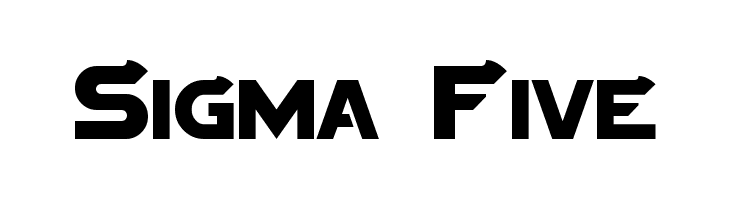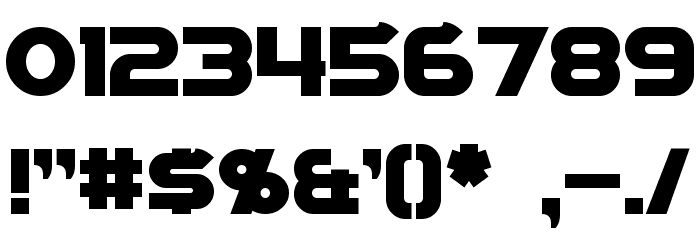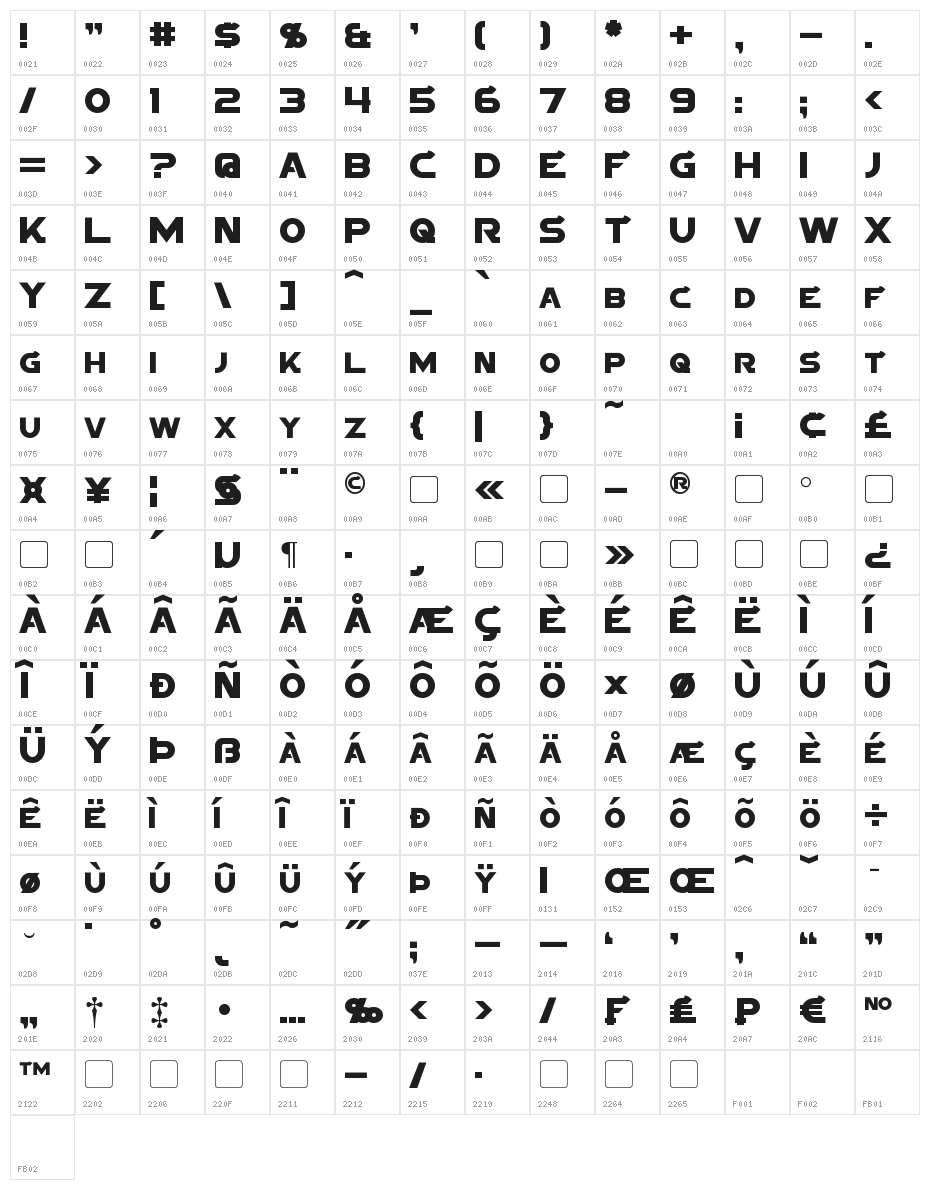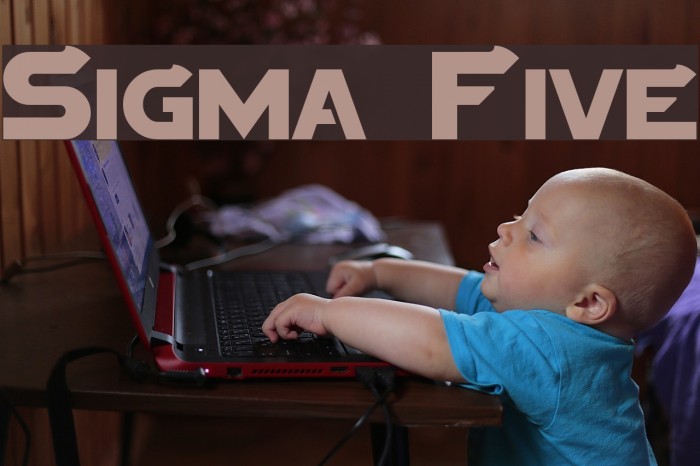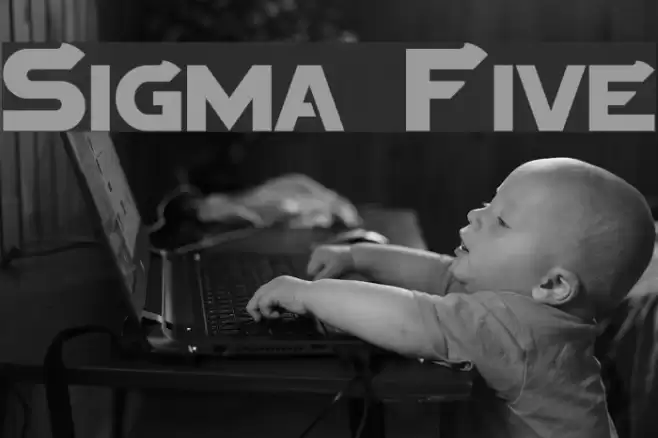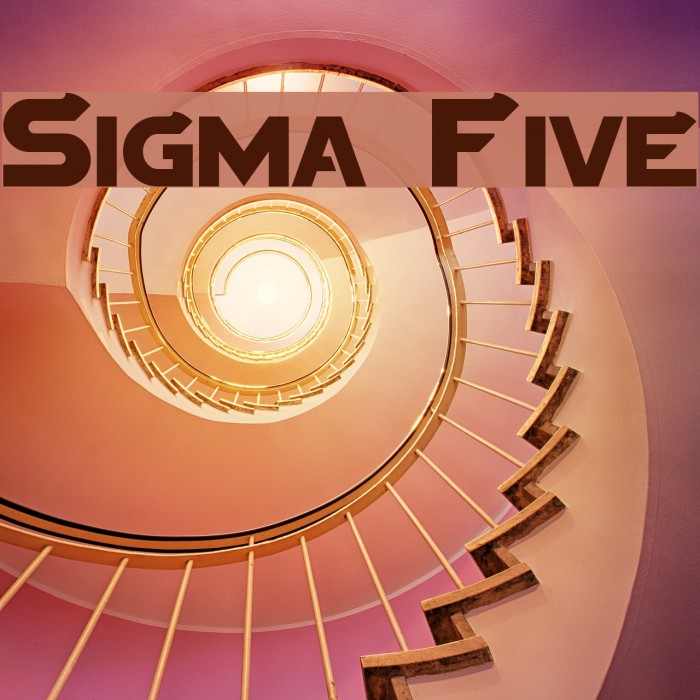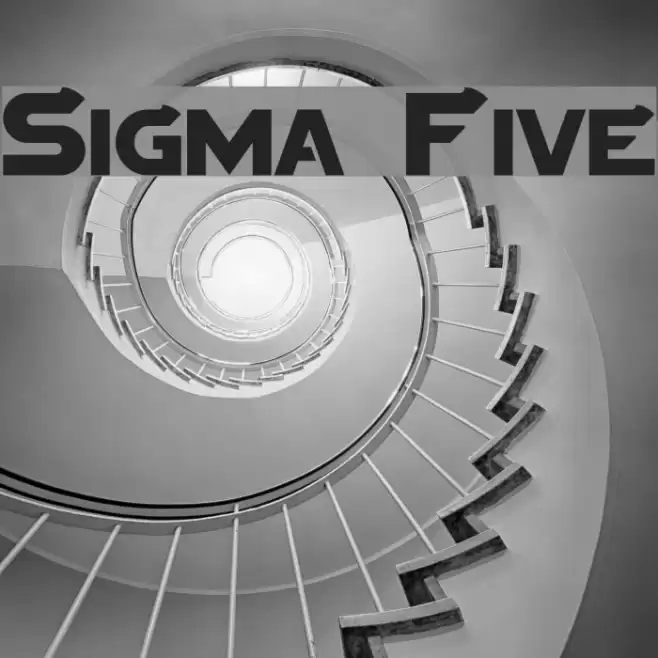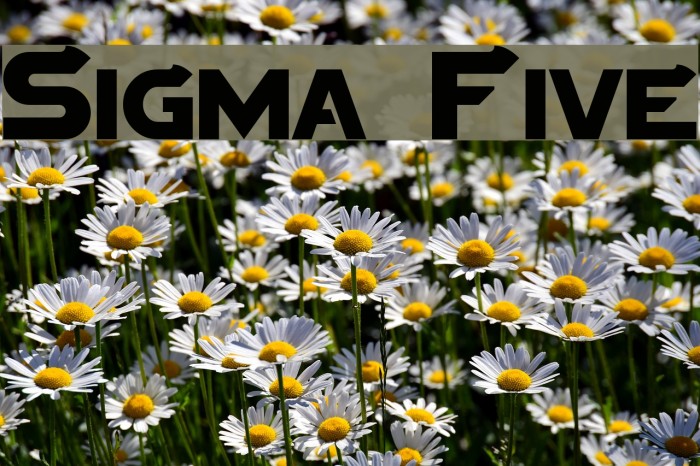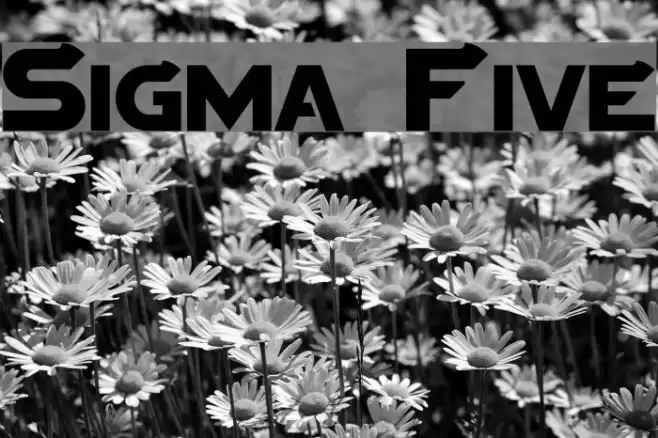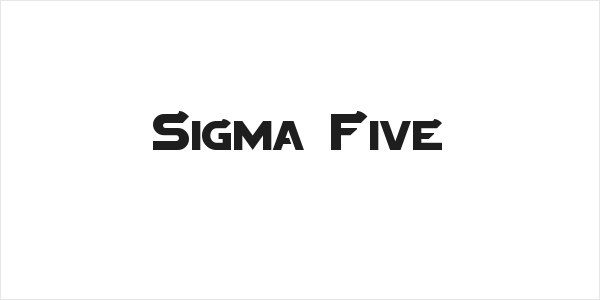
Sigma Five Font
Sigma Five Description
This font exhibits a bold and futuristic design, characterized by its geometric shapes and sharp angles. The uppercase letters are uniform in height, with a distinct blocky appearance that conveys strength and modernity. The lowercase letters maintain the same boldness, ensuring consistency across all text. Numbers are equally robust, with a clear and legible style that complements the overall design. Special characters are designed with the same attention to detail, making them stand out while remaining cohesive with the rest of the font. The font's unique style makes it suitable for projects that require a modern, impactful look.
| Proposed Projects | Ideal for technology branding, sci-fi themed designs, video game interfaces, and modern advertising. |